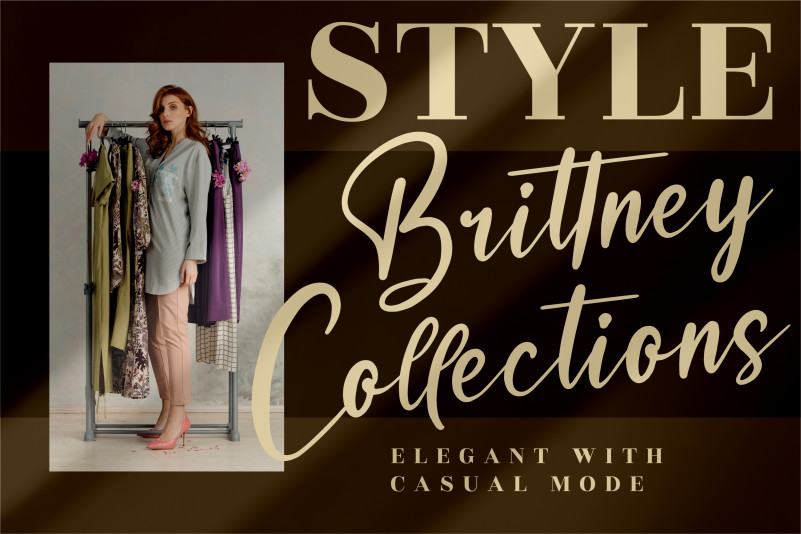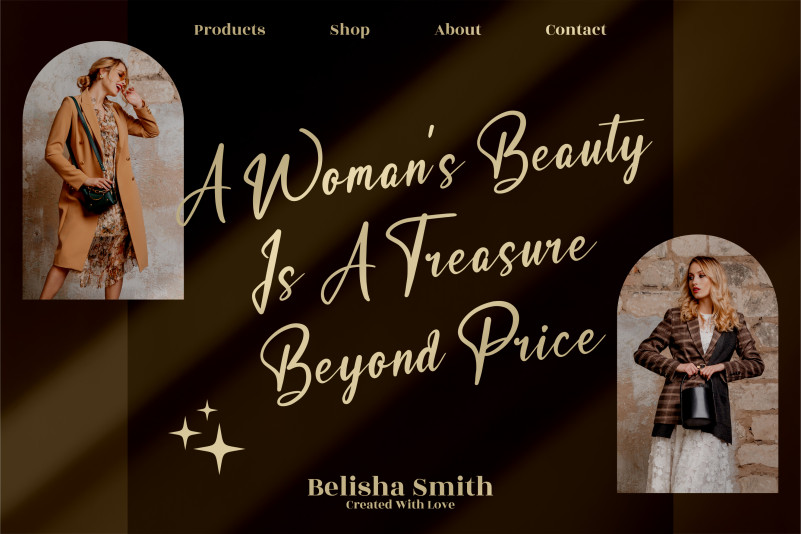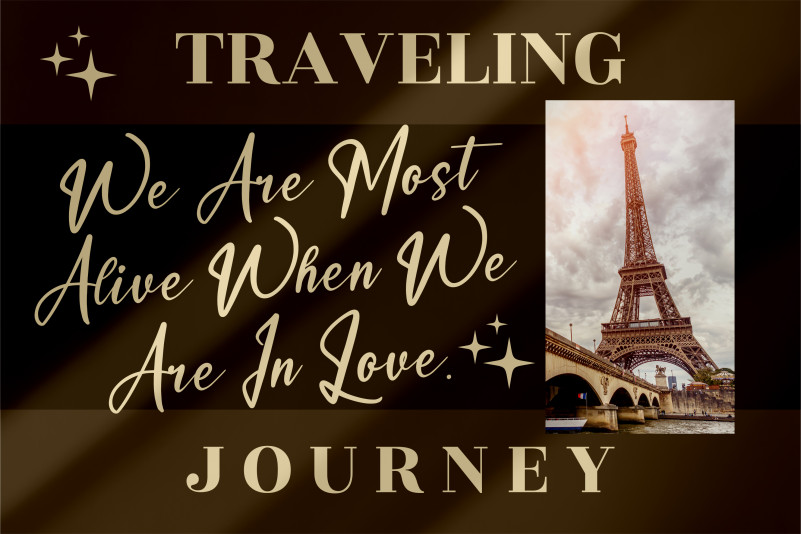
Bastian Richardo Font
Bastian Richardo Script Font
This is a sweet, relaxed, and flowing script font. Featuring characters that dance along the baseline, this font will add a luxury spark to any design project that you wish to create!